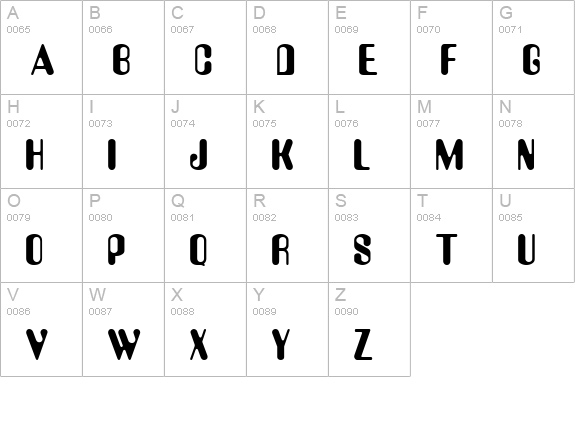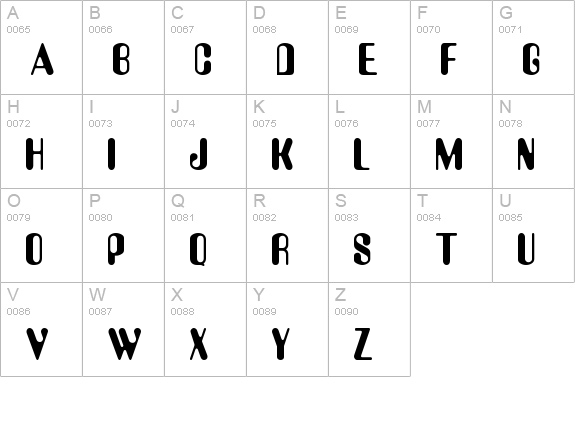
Amelia ICG Font Details
Amelia ICG font is a versatile and modern typeface that combines elegance with readability. Its clean lines and sophisticated design make it ideal for a wide range of projects, from branding to editorial design. The sleek and contemporary look of Amelia ICG font exudes professionalism and creativity, making it perfect for both digital and print applications. The best part about Amelia ICG font is that it is completely free to download at FontsMarket.com. This means that you can enhance your work with this stylish and eye-catching font without any cost. Whether you are working on a personal project or a professional design, Amelia ICG font is sure to elevate your work and make a lasting impression on your audience. Download it today and start creating stunning designs with ease.